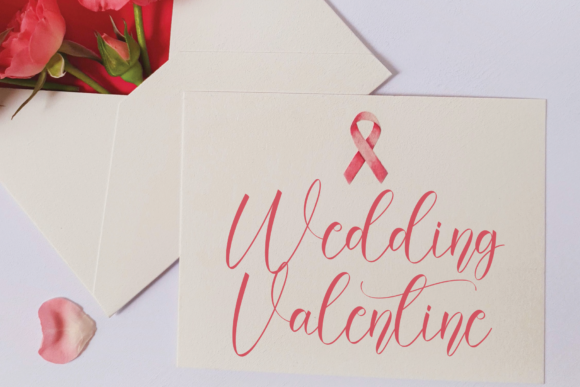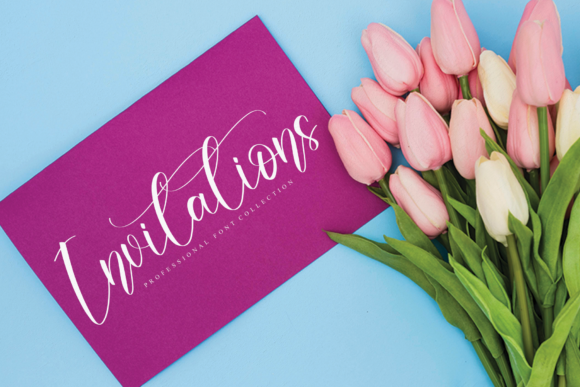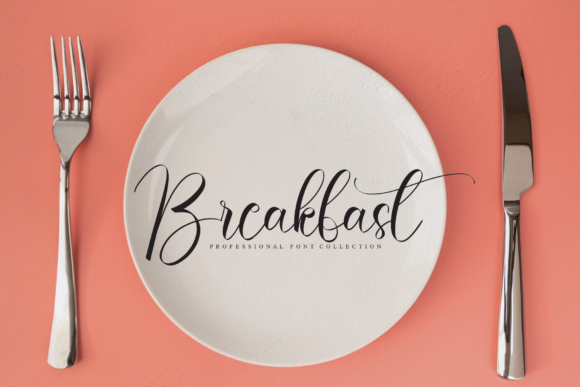
Guitar Melody Font: Elevate Your Design with a Touch of Luxury
Are you looking for a typeface that can add a touch of elegance and sophistication to your design projects? Look no further than the Guitar Melody Font. This beautiful calligraphy typeface is designed to make your designs stand out with its flowing and sweet characters that dance along the baseline.
What is Guitar Melody Font?
Guitar Melody Font is a luxurious calligraphy typeface that is perfect for designers and crafters who want to add a touch of class to their projects. The font features characters that flow smoothly along the baseline, creating a sense of movement and fluidity. This unique design makes it perfect for a variety of design projects, from wedding invitations and branding materials to packaging and advertising.
Key Features of Guitar Melody Font
- Flowing and Sweet Characters: The Guitar Melody Font features characters that are designed to flow smoothly along the baseline, creating a sense of movement and fluidity.
- Luxury and Elegant: The font is perfect for designers and crafters who want to add a touch of luxury and elegance to their projects.
- Versatile: The Guitar Melody Font is versatile and can be used for a variety of design projects, from wedding invitations and branding materials to packaging and advertising.
- Easy to Read: Despite its elegant and flowing design, the Guitar Melody Font is easy to read, making it perfect for body text and headlines.
How to Use Guitar Melody Font in Your Design Projects
The Guitar Melody Font is easy to use and can be incorporated into a variety of design projects. Here are a few ideas to get you started:
- Wedding Invitations: The Guitar Melody Font is perfect for wedding invitations, adding a touch of elegance and sophistication to your designs.
- Branding Materials: Use the Guitar Melody Font to create luxurious branding materials, such as logos, business cards, and letterheads.
- Packaging: Add a touch of luxury to your packaging designs with the Guitar Melody Font.
- Advertising: Use the Guitar Melody Font to create eye-catching advertising materials, such as billboards and magazine ads.
Benefits of Using Guitar Melody Font
There are many benefits to using the Guitar Melody Font in your design projects. Here are a few:
- Unique and Eye-Catching: The Guitar Melody Font is unique and eye-catching, making it perfect for designers who want to create designs that stand out.
- Professional and Elegant: The font is professional and elegant, making it perfect for designers who want to create designs that are sophisticated and luxurious.
- Versatile: The Guitar Melody Font is versatile and can be used for a variety of design projects.
- Easy to Read: The font is easy to read, making it perfect for body text and headlines.
Tips for Getting the Most Out of Guitar Melody Font
Here are a few tips for getting the most out of the Guitar Melody Font:
- Use it Sparingly: Use the Guitar Melody Font sparingly to add a touch of luxury and elegance to your designs.
- Pair it with Other Fonts: Pair the Guitar Melody Font with other fonts to create a unique and eye-catching design.
- Experiment with Different Sizes and Colors: Experiment with different sizes and colors to find the perfect combination for your design.
The Guitar Melody Font is a beautiful and luxurious calligraphy typeface that is perfect for designers and crafters who want to add a touch of elegance and sophistication to their designs. With its flowing and sweet characters, versatility, and ease of use, the Guitar Melody Font is a must-have for any designer looking to elevate their designs to the next level.